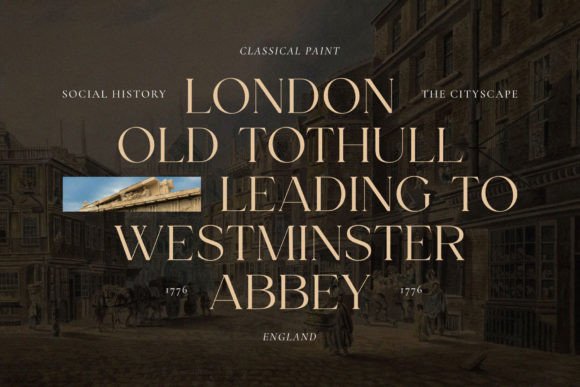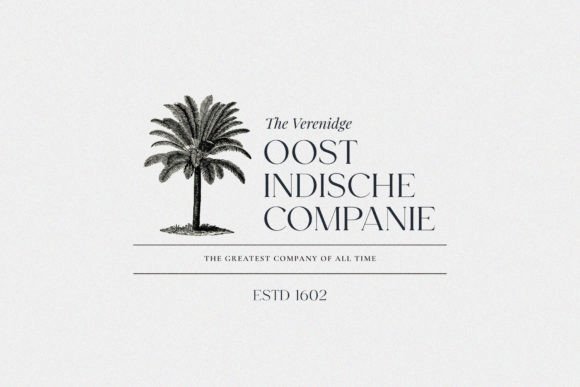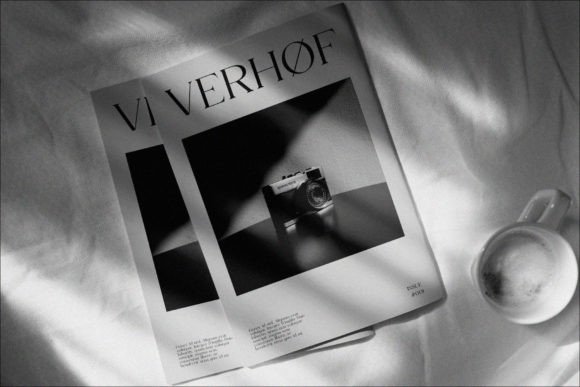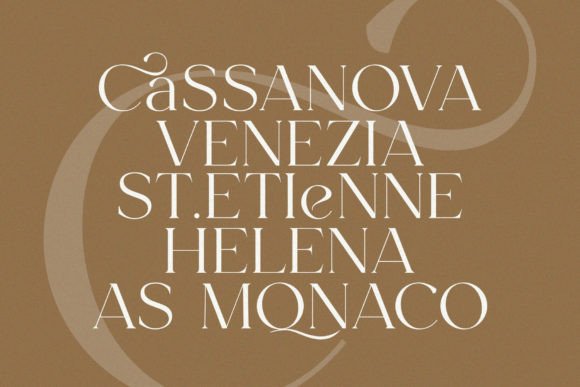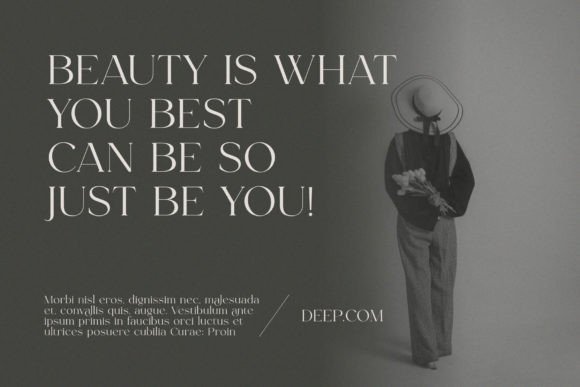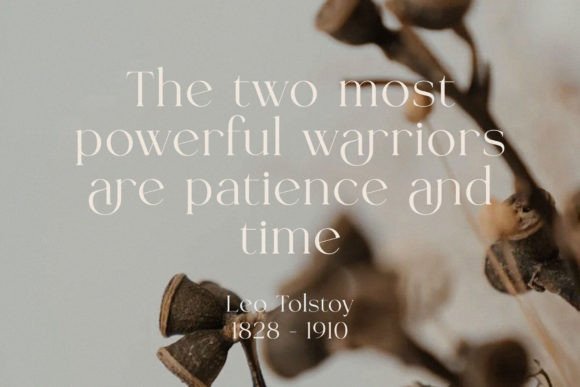
Introducing Gallante: A Unique Display Serif Font
In the world of typography, a good font can make all the difference in the success of a design project. Whether you’re a seasoned designer or a crafty DIY enthusiast, finding the right font can be a daunting task. That’s why we’re excited to introduce Gallante, a modern and classy typeface that’s perfect for adding a touch of sophistication to your designs.
What is Gallante?
Gallante is a display serif font that’s designed to make a statement. With its clean lines and smooth curves, this font is ideal for use in headings, logos, branding, magazines, product packaging, and invitations. Its unique blend of classic and modern elements makes it a versatile choice for a wide range of design projects.
Key Features of Gallante
• Modern and Classy Design: Gallante’s sleek and sophisticated design makes it perfect for designers who want to add a touch of elegance to their work.
• Display Serif Font: The font’s serif design adds a touch of classic sophistication, while its clean lines and smooth curves keep it feeling modern.
• Versatile: Gallante can be used in a variety of design projects, from headings and logos to branding and packaging.
• Easy to Read: Despite its elegant design, Gallante is easy to read, making it perfect for use in body text as well as headings.
Why Choose Gallante?
With so many fonts to choose from, why should you choose Gallante? Here are just a few reasons:
• Unique Design: Gallante’s unique blend of classic and modern elements makes it stand out from the crowd.
• High-Quality: This font is designed to be high-quality and versatile, making it perfect for professional designers and crafters alike.
How to Use Gallante
So, how can you use Gallante in your design projects? Here are a few ideas to get you started:
• Headings and Titles: Use Gallante to add a touch of elegance to your headings and titles.
• Logos and Branding: Create a professional and sophisticated logo with Gallante.
• Magazines and Newspapers: Use Gallante to add a touch of class to your magazine or newspaper design.
• Product Packaging: Add a touch of sophistication to your product packaging with Gallante.
• Invitations and Stationery: Use Gallante to create beautiful and elegant invitations and stationery.
Tips and Tricks for Getting the Most Out of Gallante
Here are a few tips and tricks for getting the most out of Gallante:
• Experiment with Different Sizes: Try using Gallante in different sizes to see how it looks in different contexts.
• Play with Color: Experiment with different colors to see how they affect the look and feel of Gallante.
• Pair it with Other Fonts: Try pairing Gallante with other fonts to create a unique and interesting look.
In conclusion, Gallante is a unique and versatile display serif font that’s perfect for designers and crafters who want to add a touch of sophistication to their work. With its clean lines, smooth curves, and elegant design, Gallante is sure to make a statement in any design project. Whether you’re working on a professional project or a DIY craft, Gallante is a great choice for anyone looking for a high-quality font.